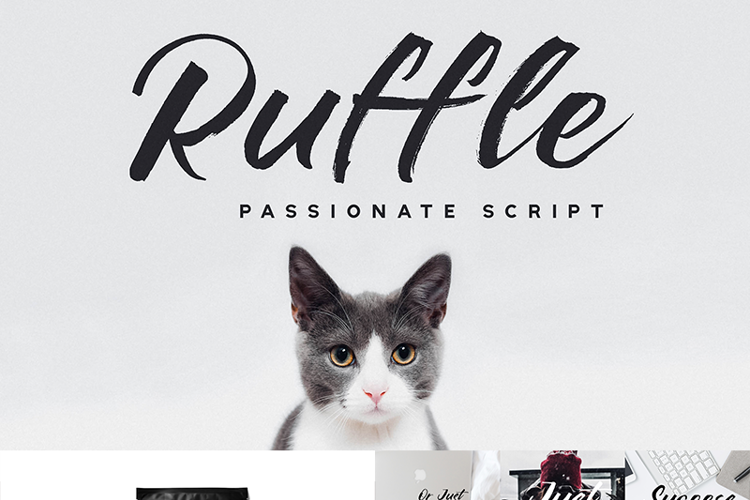
Ruffle Script Font
About Ruffle Script Font
More info from Konstantine Studio
Free your mind, free your soul, go wild and explore your imagination with Ruffle Script! A fast hand-stroke inked brush font with the urban and casual feels but still classy look in every letters. Would be a good pick for your urban casual vintage branding needs. Release the young spirit in you!